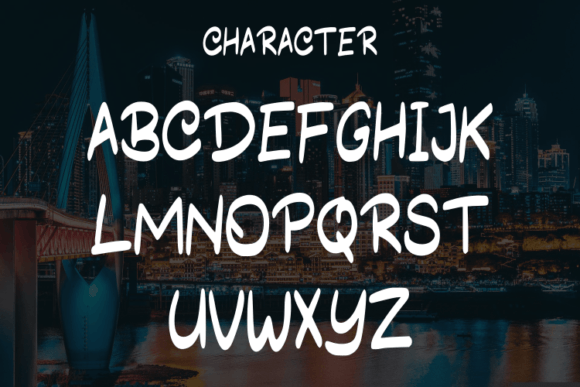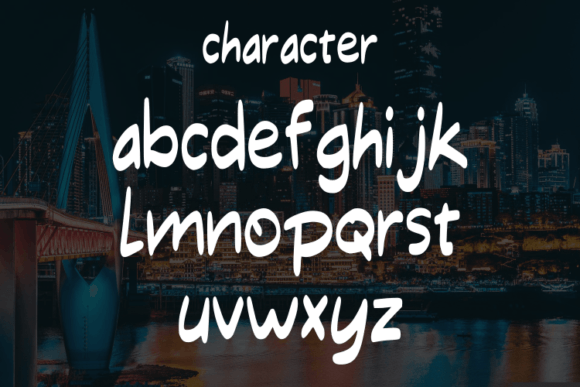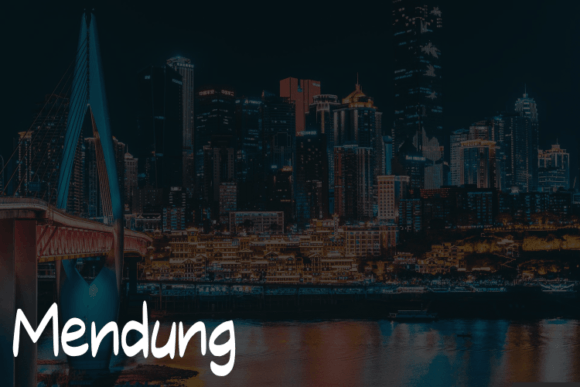
About Mendung Font
Mendung is a script typeface that boasts a simple yet modern style. Its sleek design makes it a perfect choice for creating an elegant and luxurious aesthetic, whether for crafting sophisticated logos, designing titles for books or movies, establishing a strong presence for fashion brands, curating stylish magazines, or enhancing the typography of clothing, quotes, and more.
The simplicity of Mendung imparts a contemporary touch, making it versatile and adaptable to various design applications. Its clean lines and modern look contribute to a timeless quality that can elevate the visual appeal of a wide range of projects.
This script typeface particularly shines in projects that demand an elegant and upscale feel. Its refined appearance lends itself well to creating a sense of sophistication, making it an excellent choice for brands and designs that seek a touch of luxury.
In summary, Mendung is more than just a script typeface; it’s a design tool that effortlessly combines simplicity and modernity. Whether you are working on logos, titles, or various creative projects, Mendung adds an elegant and luxurious element that enhances the overall aesthetic.